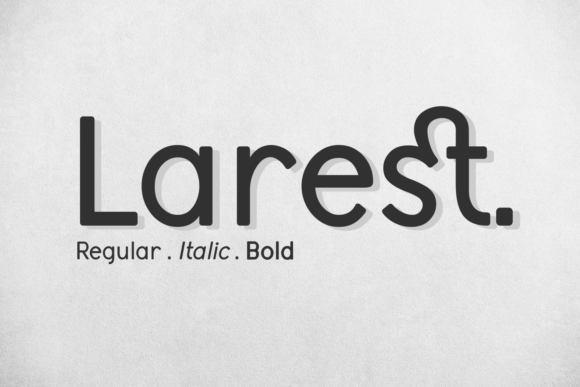
About Larest Font
Larest is a stunningly modern and charming sans serif font with a smart feel. This casual, yet elegant typeface will add a dash of simplicity to a wide variety of design projects, be it large texts, greeting cards, invitations, advertising, presentations, and much more!